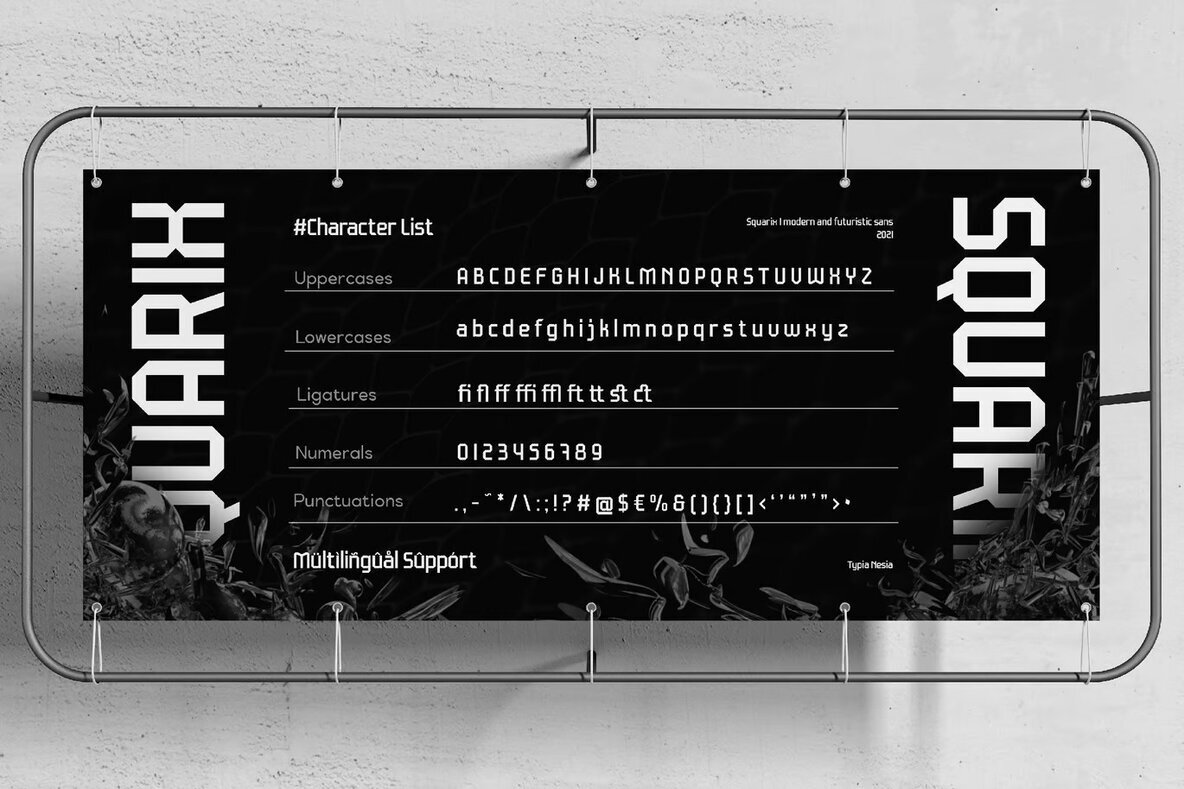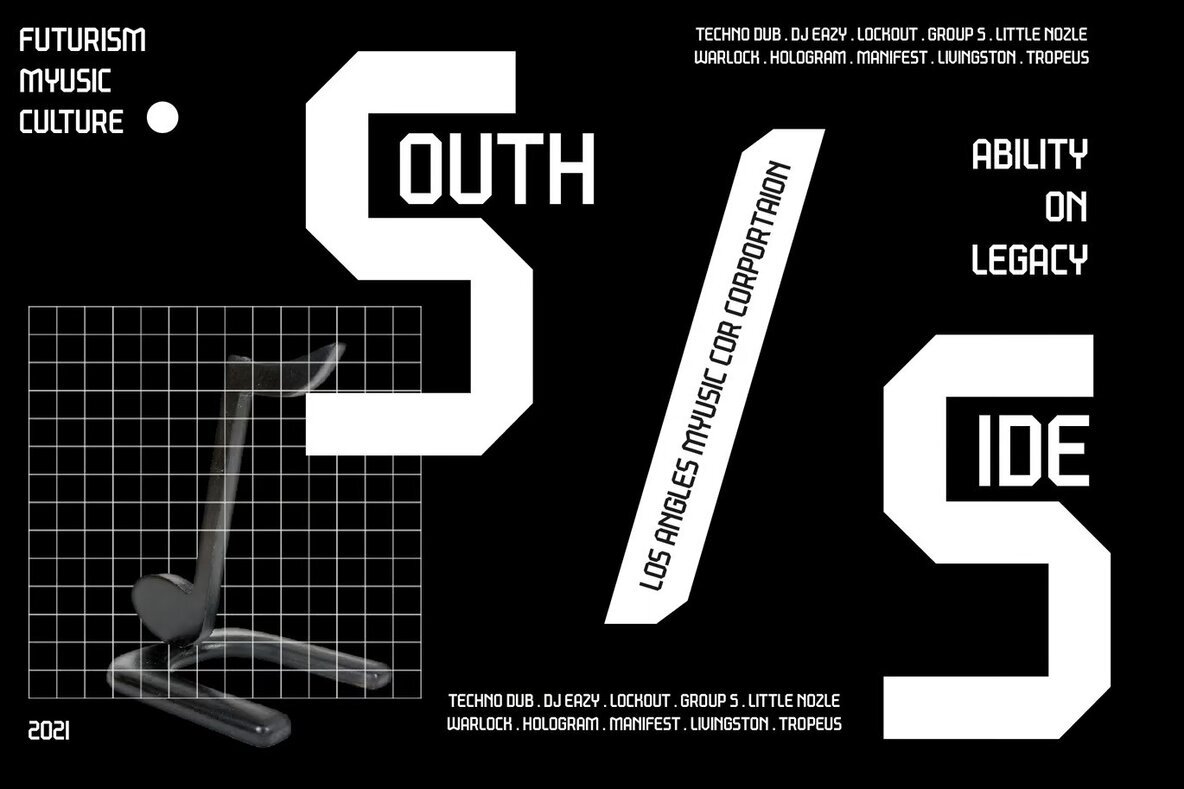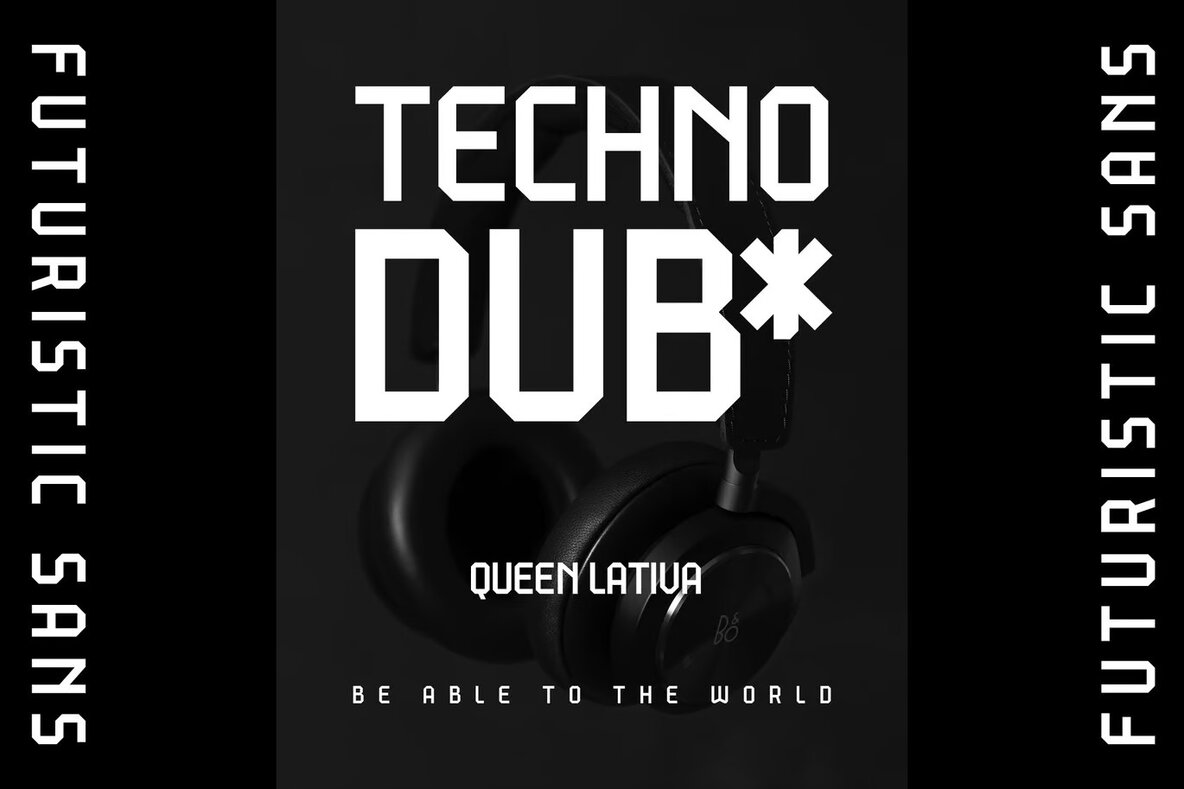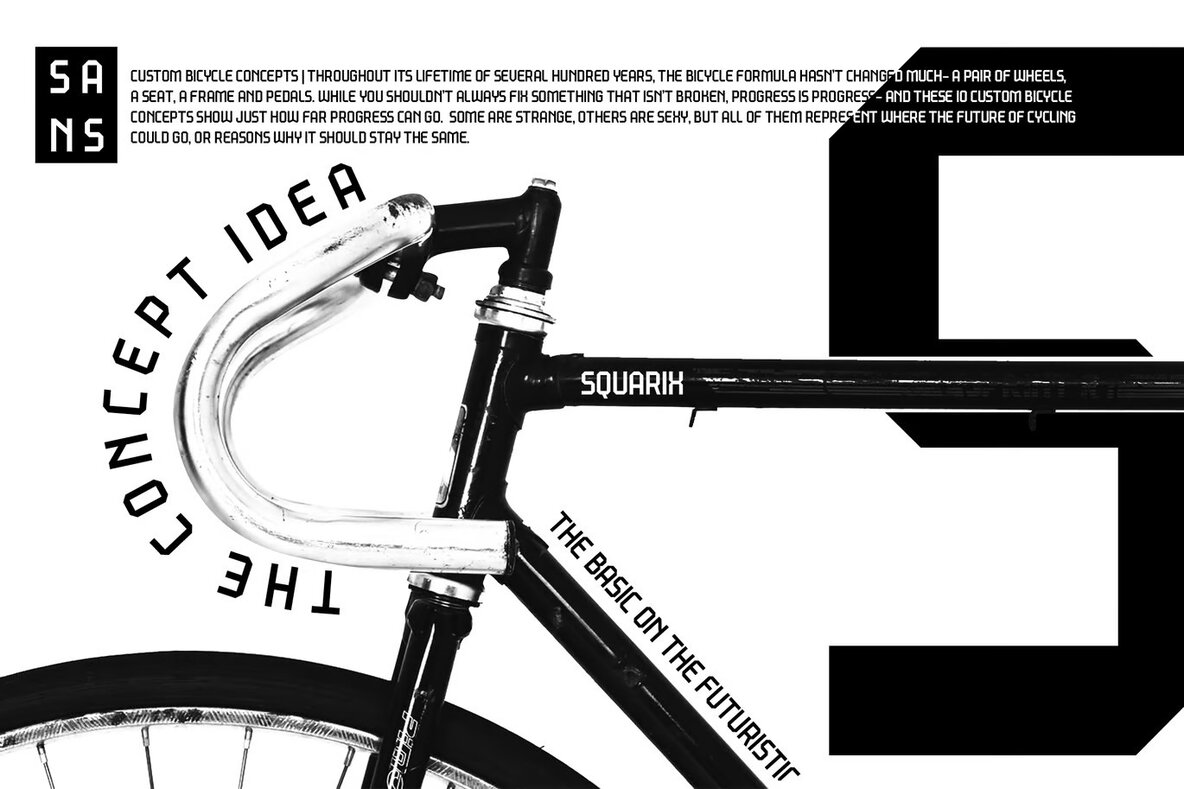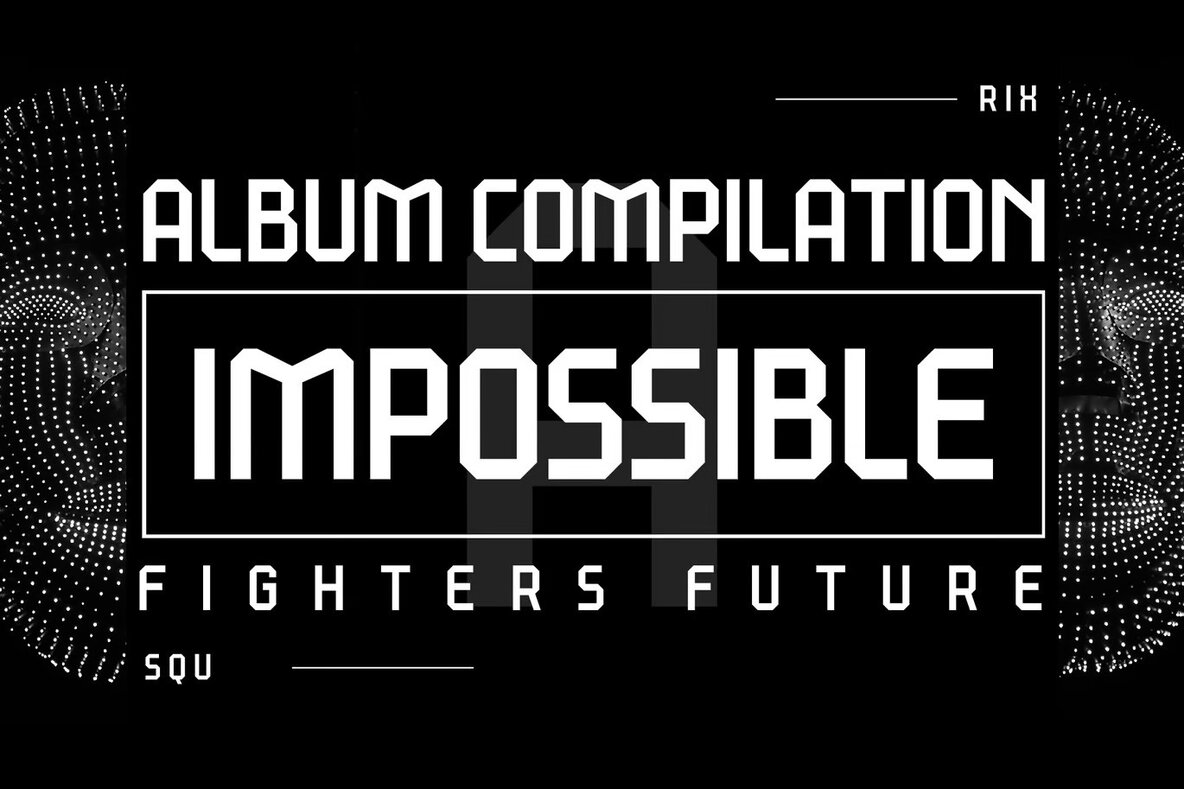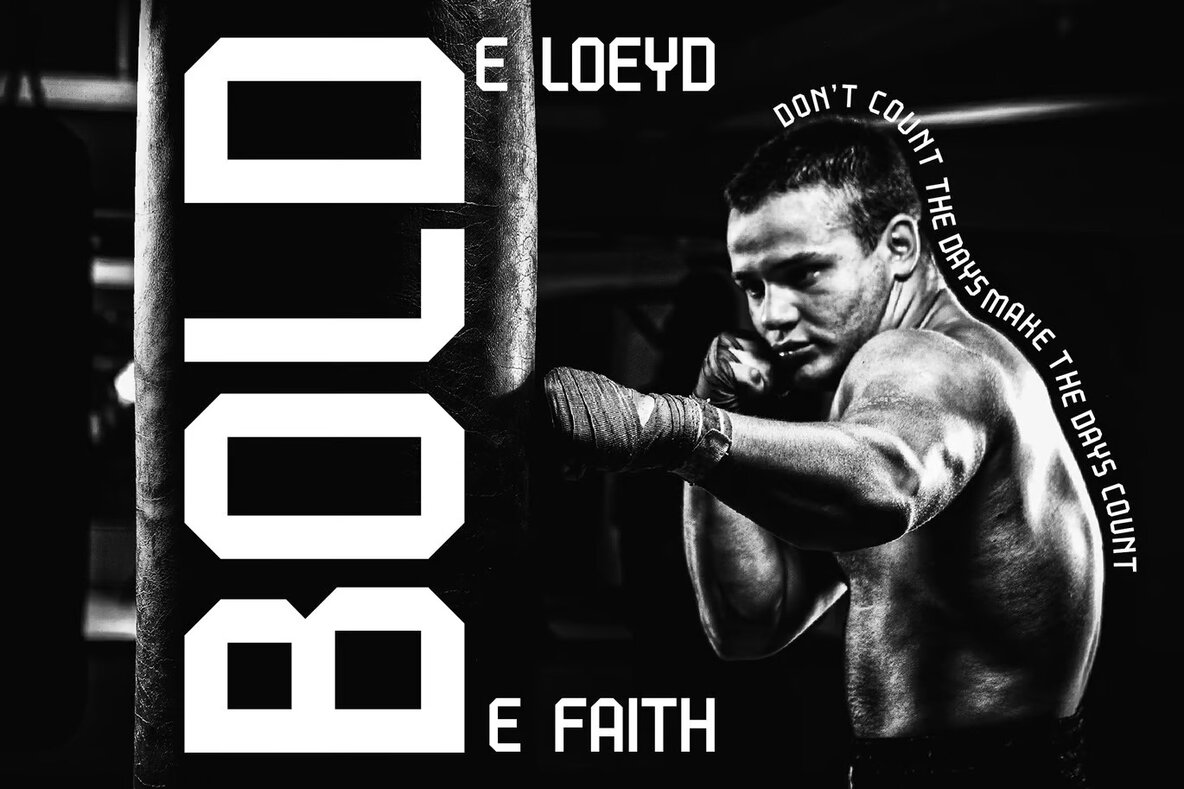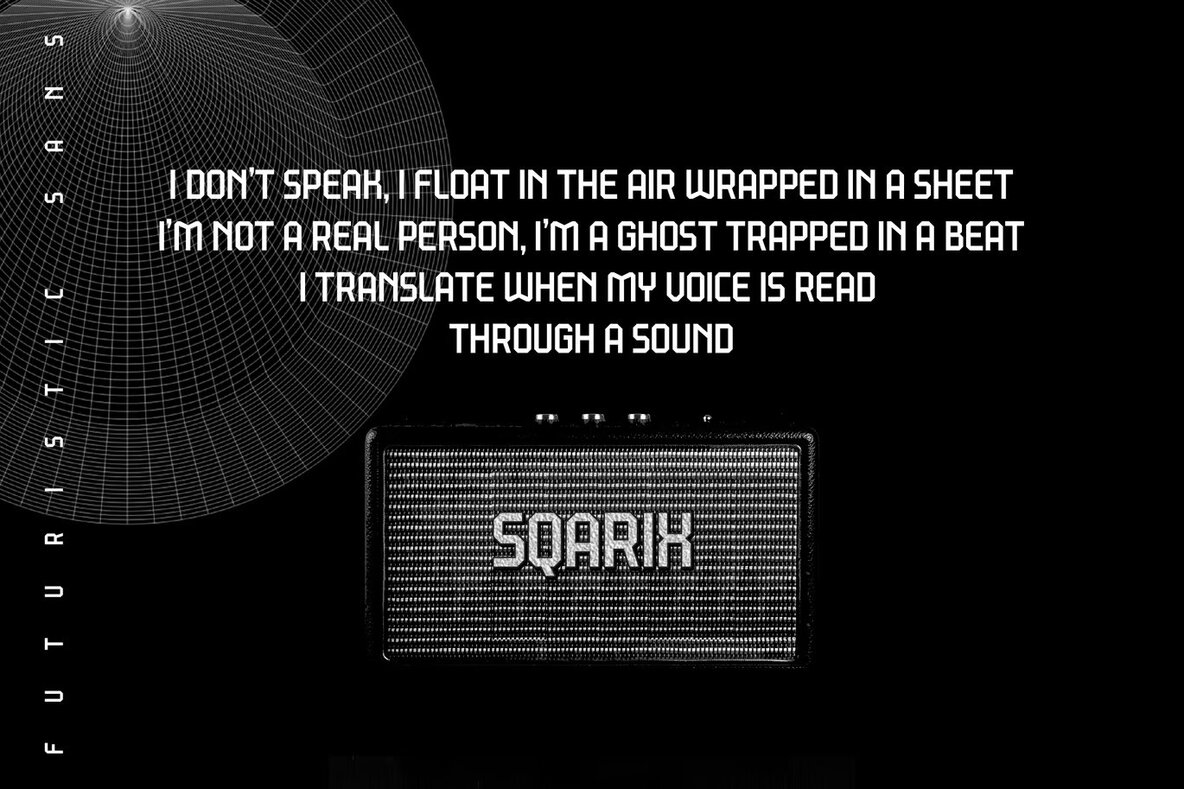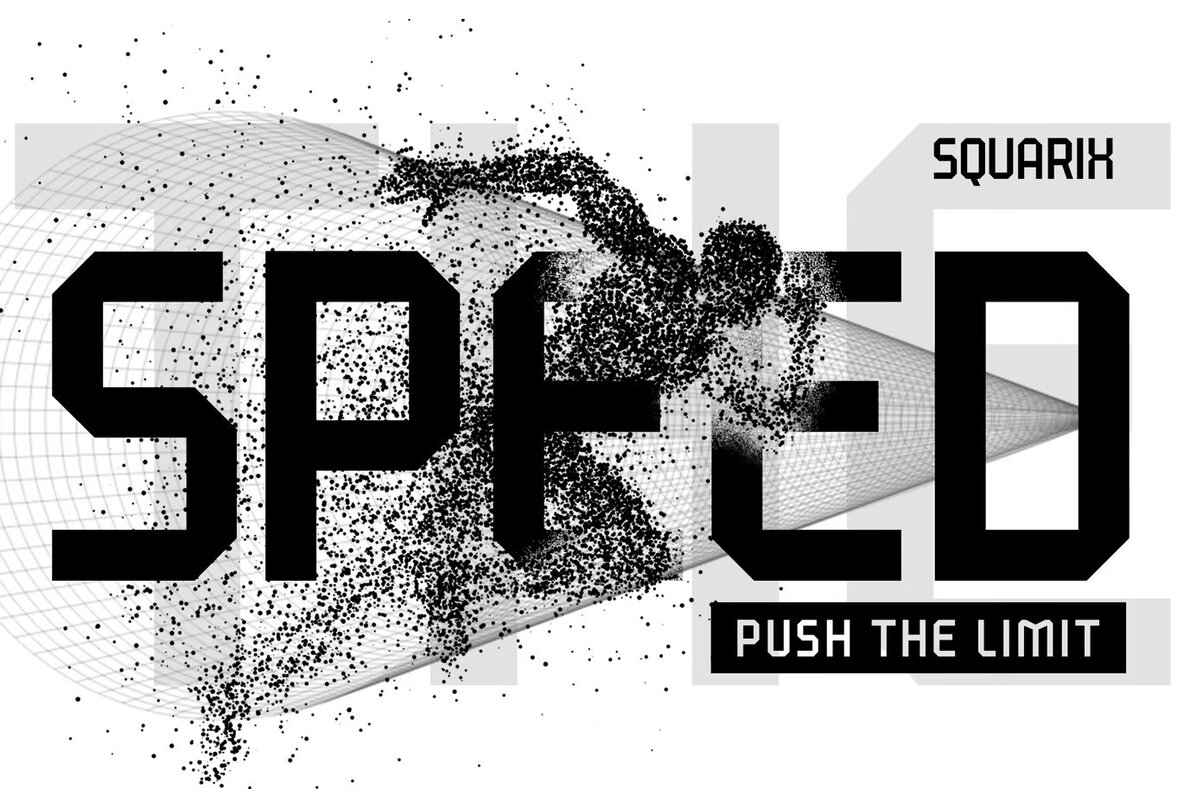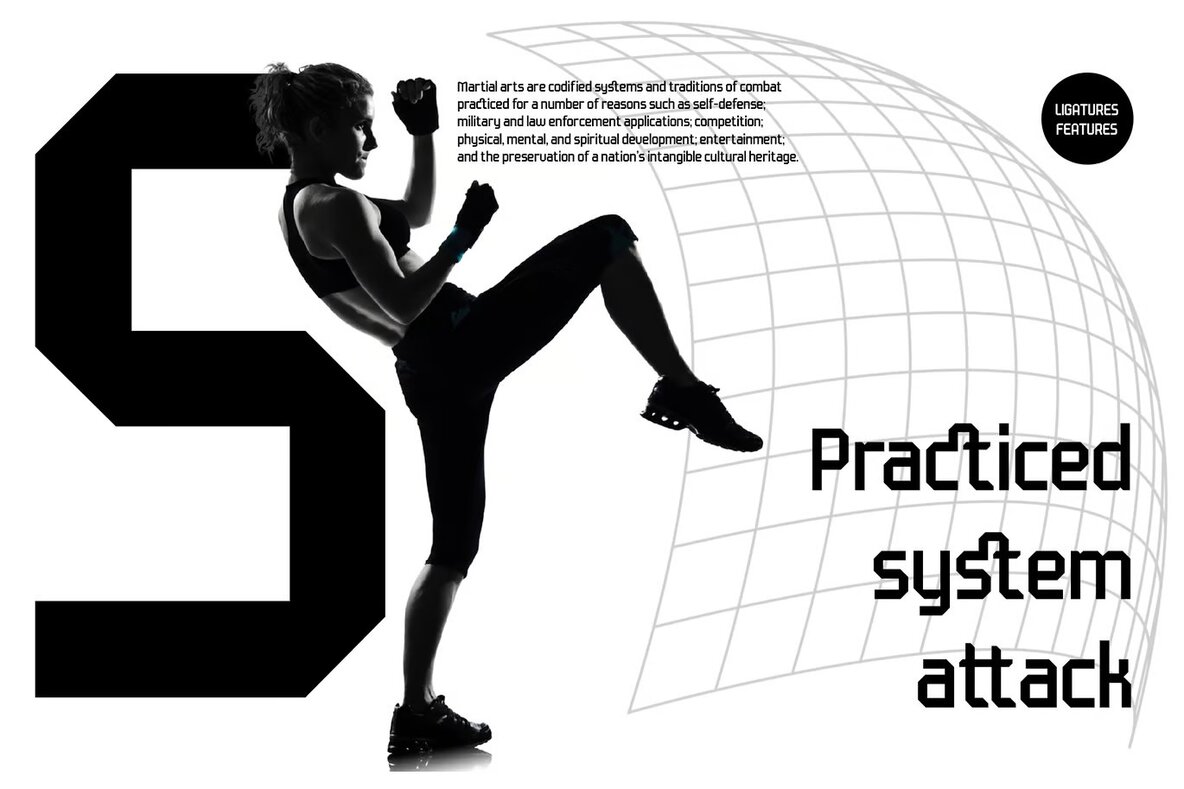
Squarix Font
Squarix offers a modern and futuristic aesthetic, perfect for a variety of design projects. Its octagonal, sci-fi-inspired form makes it ideal for logo branding, editorial and stationery design, and sports-themed projects. With its strong, geometric styling, Squarix is especially suited for 80s retro designs, gaming industry graphics, and music posters. Its versatile attributes also lend themselves beautifully to modern advertising, blog designs, and card invitations, capturing a sleek and contemporary feel across mediums.
In addition to its stunning visual appeal, Squarix is an excellent choice for art quotes, movie features, and book or cover titles. Its sharp lines and sporty characteristics seamlessly integrate into event materials and home decor, remaining visually impactful and stylish. Whether for personal projects or professional applications, Squarix Sans Serif Font ensures a distinctive and memorable touch to your design endeavors.